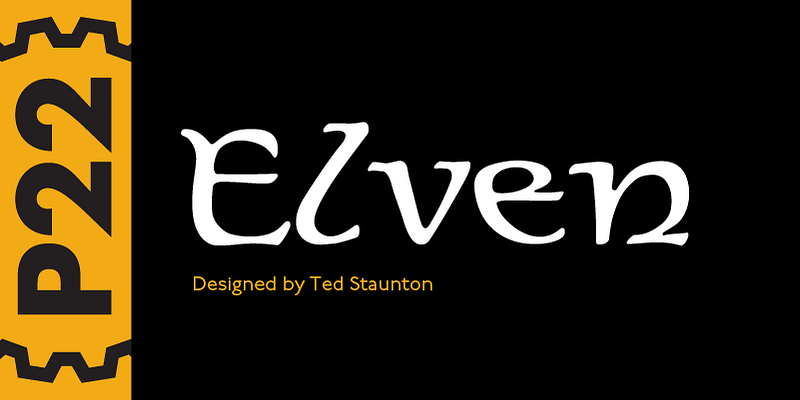
P22 Elven Font Free Download is a mystical and elegant script typeface inspired by the fantastical world of elves and ancient calligraphy. With its flowing, intricate letterforms and unique design, this font is perfect for fantasy-themed projects, book covers, movie posters, branding, and invitations that require a touch of magic and sophistication.